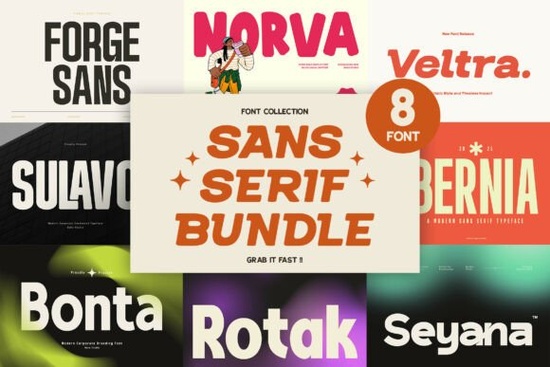
If you're looking for clean, versatile sans serif fonts that work across logos, social graphics, product labels, and print-on-demand designs, the Sans Serif Bundle Collection Font is a practical choice. It’s not just eight fonts it’s a thoughtfully balanced set built for real-world use: one extended bold for headlines, a tight condensed version for space-constrained layouts, a friendly medium weight for body text, and several more with distinct personalities but consistent spacing and proportions. As someone who’s tested dozens of font bundles for client work and side projects, I appreciate how this collection avoids clashing weights or inconsistent x-heights a common headache when mixing fonts from different designers.
What’s actually in the bundle?
The eight fonts share a common design language geometric roots, open apertures, and subtle humanist touches but each serves a clear role:
- Extended Bold: Tall, confident letterforms ideal for signage, apparel prints, or hero banners where impact matters.
- Condensed Medium: Fits more text in tight spaces great for Instagram captions, packaging side panels, or invoice headers.
- Regular & Italic: Balanced proportions and generous spacing, making them easy to read at small sizes on product tags or web buttons.
- Semi-Bold & Extra-Bold: Designed to pair cleanly with the regular weights not overpowering, but noticeable enough for subheadings or callouts.
- Narrow Light & Rounded Medium: Two stylistic alternatives one for minimalist branding, the other for friendlier, approachable applications like kids’ products or wellness brands.
Who benefits most from this collection?
Small business owners building their first brand kit often overbuy individual fonts, only to find they don’t scale well across formats. This bundle solves that by giving you a full typographic system no guesswork about which weights go together. Print-on-demand sellers (think Etsy shops or Redbubble stores) especially benefit: you can use the same family across t-shirt mockups, sticker sheets, and digital ads without licensing complications. Designers working with crafters or local makers also find it useful the fonts export cleanly to Cricut Design Space and Silhouette Studio, and the OpenType features include standard ligatures and alternate numerals.
It’s worth noting that while this is a sans serif set, it doesn’t feel sterile or corporate. There’s warmth in the curves of the rounded variant, and the extended weight has presence without stiffness more like a well-designed storefront sign than a spreadsheet header. If you’ve used the Essential Handwritten Bundle for playful projects, this gives you the grounded, structured counterpart you’ll reach for when professionalism and clarity are priorities.